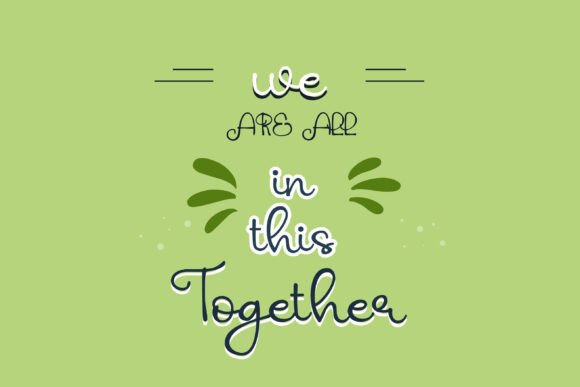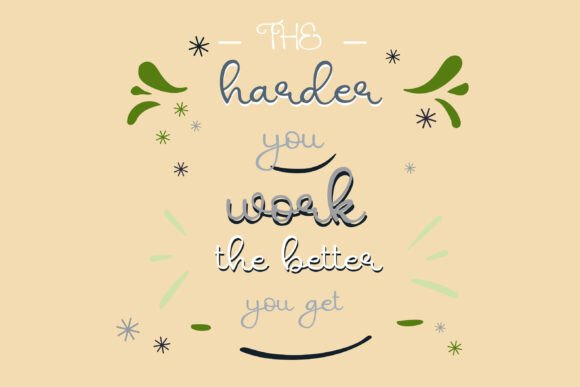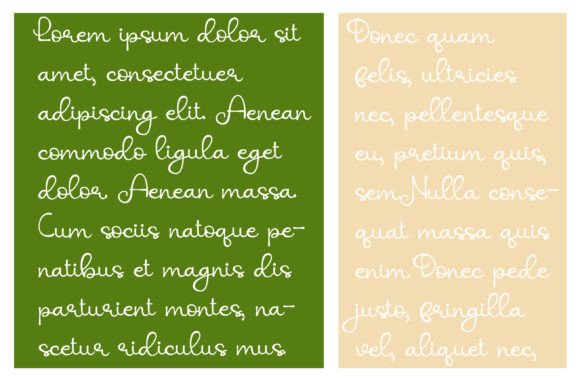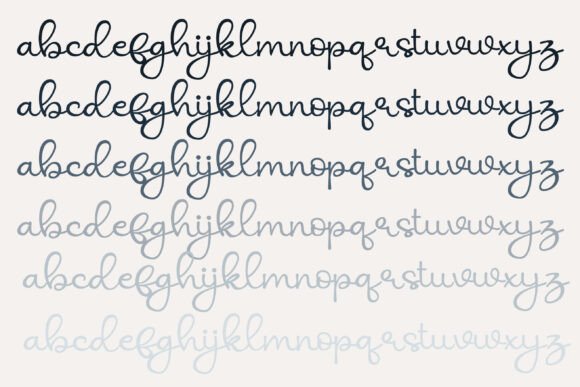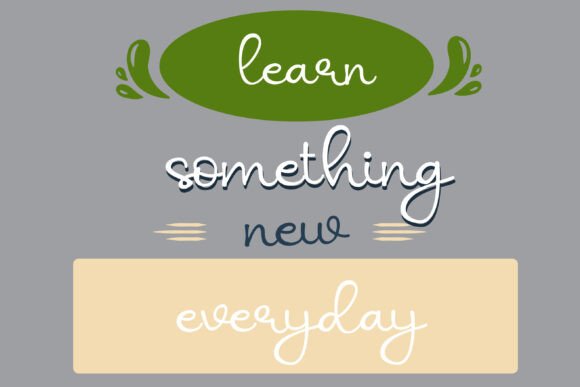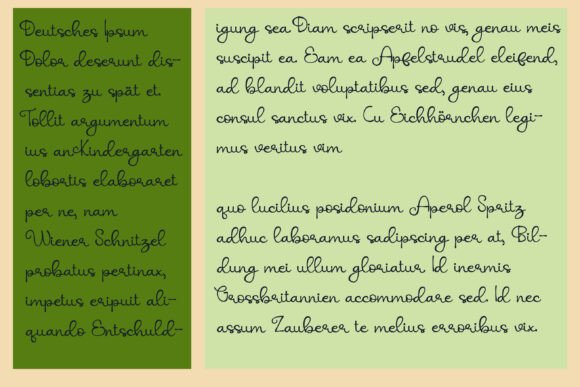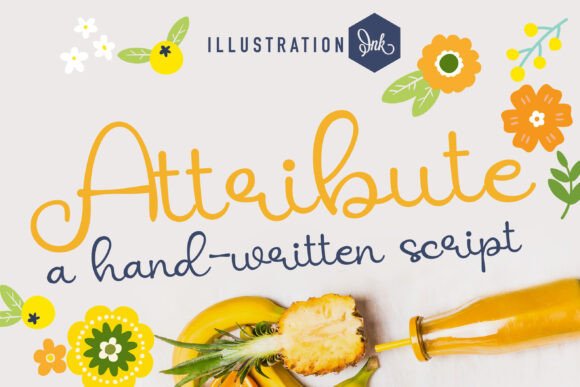
The Charm of Attribute Font: A Hand-Crafted Script with Personality
I still remember the design project that led me to discover the Attribute Font. I was working on a wedding invitation suite, and my client had a very specific vision: a elegant, yet playful script that would set the tone for their special day. I spent hours scouring font libraries, but nothing seemed quite right. That was when I stumbled upon Attribute Font, a hand-crafted script with big loops and curls in the uppercase. It was love at first sight! 💕
A Personal Review of Attribute Font
So, what makes Attribute Font so special? Here are a few things I love:
- ✨ Unique, hand-crafted feel that’s perfect for invitations, greeting cards, and other special projects
- ✅ Bold version included, making it versatile for a range of design applications
- ✅ OpenType features, including glyphs and stylistic alternates, add an extra layer of creativity
- ✅ Easy to read, even in smaller sizes
Of course, no font is perfect, and Attribute Font has a few small quirks:
- 🤔 Some users may find the loops and curls a bit too ornate for very formal projects
- ⚠️ Limited use in very small sizes, as the details can get lost
The Story Behind Attribute Font
Attribute Font was designed with the intention of capturing the charm of handwritten scripts. The designer aimed to create a font that would evoke a sense of personality and whimsy, while still being legible and versatile. The result is a font that’s perfect for a range of creative projects, from invitations to branding materials.
| What is Attribute Font? | Attribute Font is a hand-crafted script font with big loops and curls in the uppercase, designed to add a touch of personality to your designs. |
| Is Attribute Font suitable for formal projects? | While Attribute Font has a playful tone, it’s still legible and elegant enough for formal projects, such as wedding invitations and business branding. |
| Does Attribute Font include OpenType features? | Yes, Attribute Font includes OpenType features, such as glyphs and stylistic alternates, to add extra creativity to your designs. |